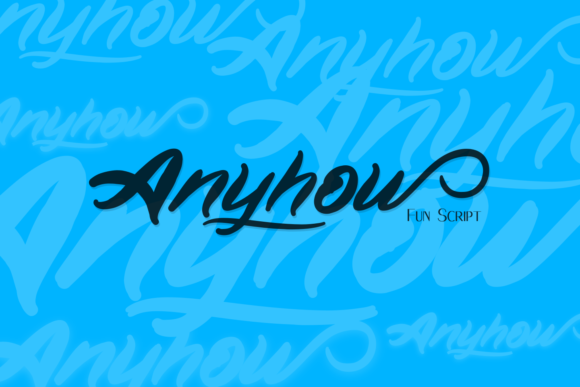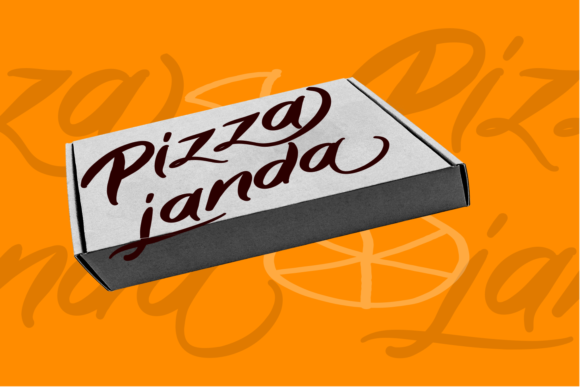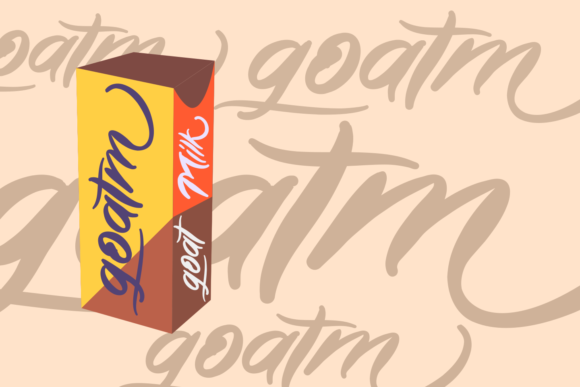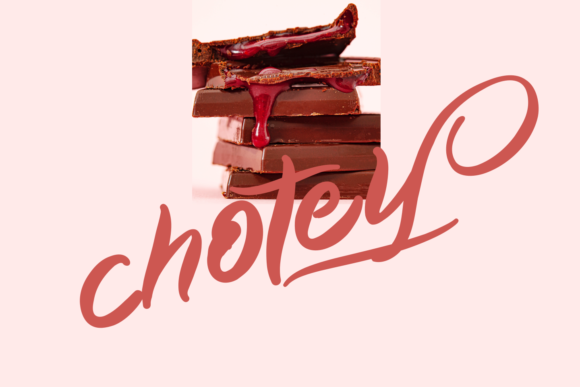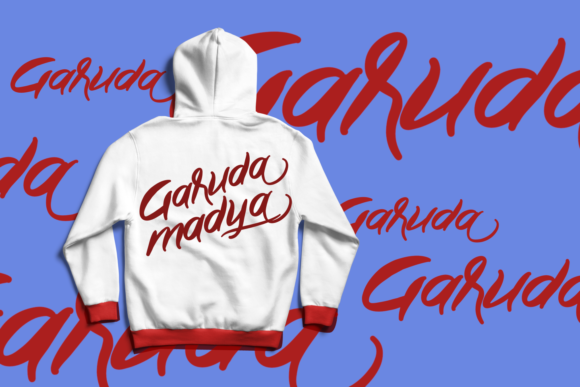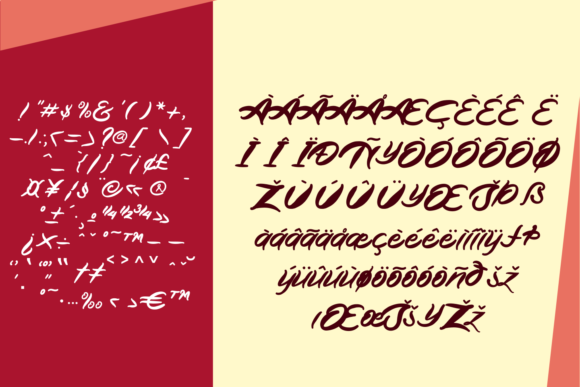
HomeScript FontsAnyhow Font Script Fonts Anyhow Font FacebookXPinterestWhatsApp Anyhow Font Poster 2 Anyhow Font Poster 3 Anyhow Font Poster 4 Anyhow Font Poster 5 Anyhow Font Poster 6 Anyhow Font Poster 7 About Anyhow Font Anyhow is a fun script for energetic people. Use it for any design that needs a jolt of energy! DOWNLOAD NOW People also explored Flatty Monoline Font Andetsen Font Sylvia Dalman Font Callisa Script Candy Santa Font Andit Font Sparkling Christmas Font The Legend of Christmas Font Bestar 275 0 TagsAnyhow Font Previous articleLord Elliot FontNext articleFooland Font LEAVE A REPLY Cancel reply Comment: Please enter your comment! Name:* Please enter your name here Email:* You have entered an incorrect email address! Please enter your email address here Website: Save my name, email, and website in this browser for the next time I comment. Personal Use Free Archipellago Personal Use Free Read more about this font Blessed Font Personal Use Free Read more about this font Morning Miow Personal Use Free Read more about this font Hallo Betty Personal Use Free Read more about this font BLOG Best Fonts for T-Shirt Design – Top 2025 Picks In 2025, t-shirt design has become more than just fashion—it's a form of self-expression. Whether you're... Top 7 Google Fonts Alternatives for Faster and Privacy-Friendly Web Design (2025) Modern Sans-Serif Fonts That Brands Love in 2025 Transform Your Website: Elevate Your Typography with 7 Best Web Font Generators